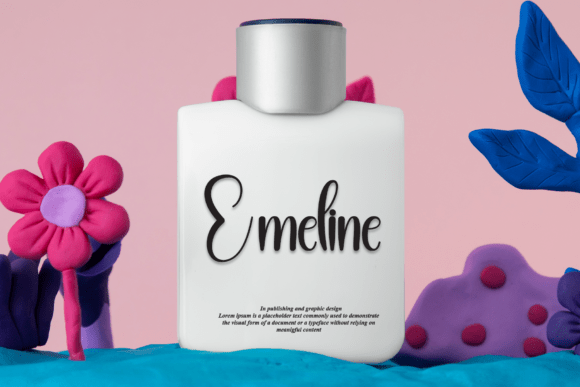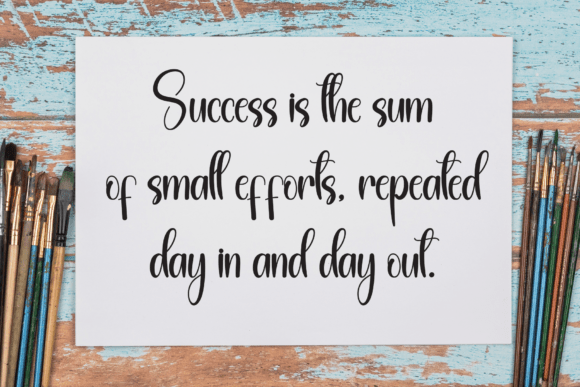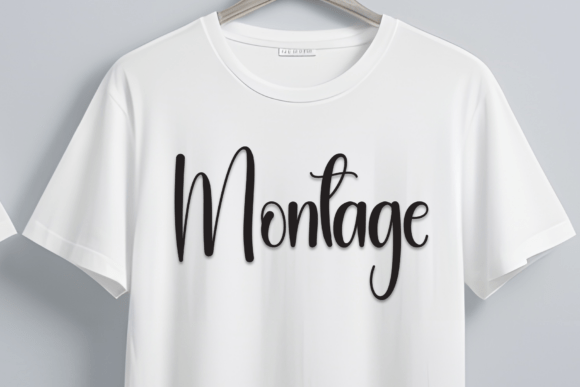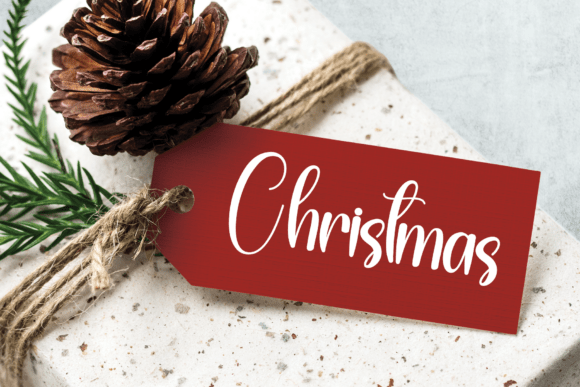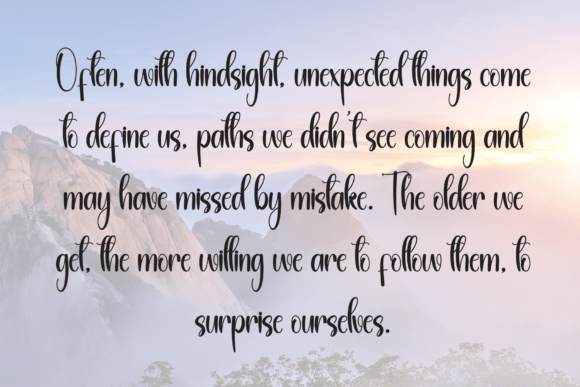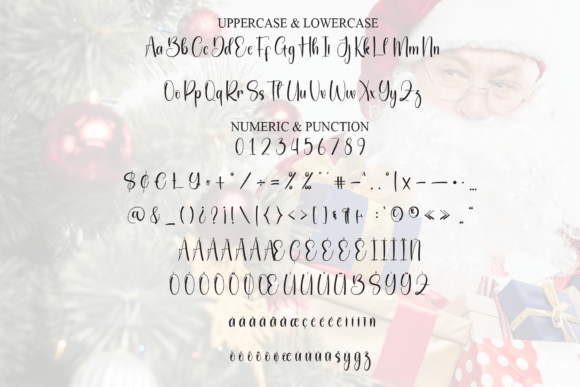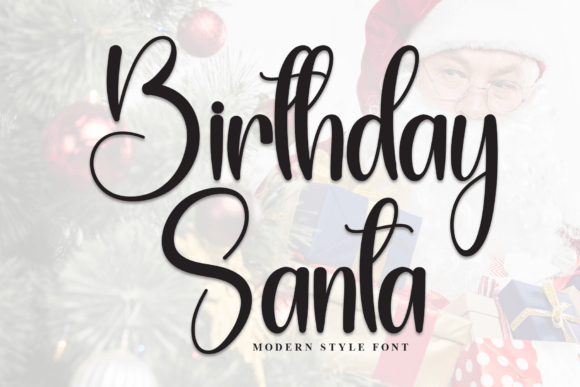
Introducing Birthday Santa Font: Elevate Your Designs with Elegance and Sophistication
Are you looking for a font that exudes luxury, sophistication, and a touch of festive flair? Look no further than the Birthday Santa Font, a modern script font designed to bring a high-end, hand-penned aesthetic to your designs. In this article, we’ll dive into the features and benefits of this stunning font, and explore how it can elevate your seasonal branding, packaging, greeting cards, and digital headers.
A Sophisticated Script Font for the Holidays
Birthday Santa Font is a masterfully crafted script font that boasts a unique blend of elegance and playfulness. Its vertically elongated letterforms, consistent monolinear weight, and smooth character joins create a sense of fluidity and sophistication, making it perfect for designs that require a touch of luxury. Whether you’re creating holiday branding, boutique product packaging, or sentimental greeting cards, this font is sure to impress.
Key Features of Birthday Santa Font
- Vertically Elongated Letterforms: The font’s tall ascenders and descenders create a sense of drama and elegance, making it perfect for headlines and titles.
- Consistent Monolinear Weight: The font’s consistent weight creates a sense of cohesion and harmony, making it ideal for body text and longer passages.
- Smooth Character Joins: The font’s smooth joins create a sense of fluidity and movement, making it perfect for creating dynamic and engaging designs.
- Rhythmic Visual Flow: The font’s rhythmic flow mimics natural ink work on paper, creating a sense of organic and handmade elegance.
Use Cases for Birthday Santa Font
Birthday Santa Font is an incredibly versatile font that can be used in a variety of design applications. Here are some ideas to get you started:
- Seasonal Holiday Branding: Use Birthday Santa Font to create eye-catching holiday branding, including logos, packaging, and advertising materials.
- Boutique Product Packaging: Add a touch of luxury to your product packaging with Birthday Santa Font, perfect for high-end boutiques and specialty stores.
- Sentimental Greeting Cards: Create heartfelt and elegant greeting cards with Birthday Santa Font, perfect for special occasions and holidays.
- Creative Digital Headers: Use Birthday Santa Font to create stunning digital headers, perfect for blogs, websites, and social media graphics.
Why Choose Birthday Santa Font?
So why choose Birthday Santa Font over other script fonts on the market? Here are just a few reasons:
- Unique and Sophisticated Design: Birthday Santa Font boasts a unique and sophisticated design that’s sure to stand out in any design application.
- High-End Aesthetic: The font’s high-end aesthetic makes it perfect for luxury brands, boutiques, and high-end products.
- Ease of Use: Birthday Santa Font is incredibly easy to use, with a simple and intuitive design that’s perfect for designers of all skill levels.
- Versatility: The font’s versatility makes it perfect for a wide range of design applications, from holiday branding to digital headers.
In conclusion, Birthday Santa Font is a sophisticated script font that’s perfect for designers and crafters looking to add a touch of luxury and elegance to their designs. With its unique and sophisticated design, high-end aesthetic, ease of use, and versatility, this font is sure to become a go-to choice for seasonal holiday branding, boutique product packaging, sentimental greeting cards, and creative digital headers. So why wait? Download Birthday Santa Font today and start elevating your designs to new heights!